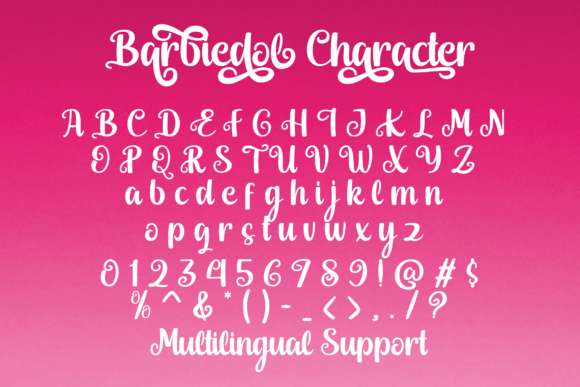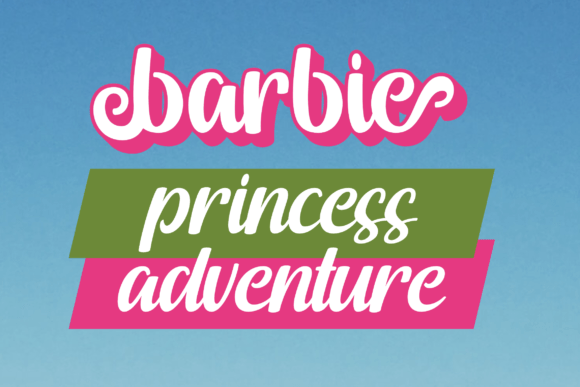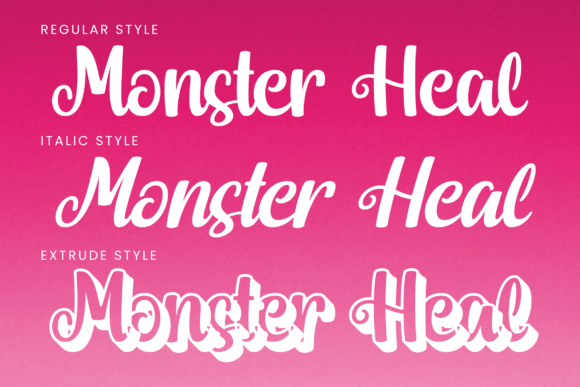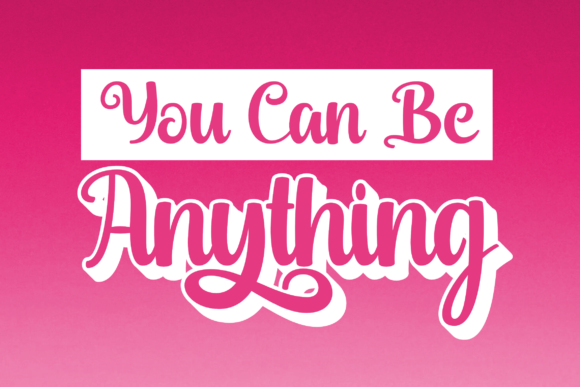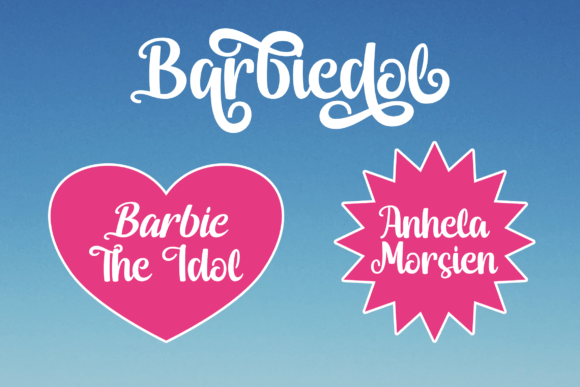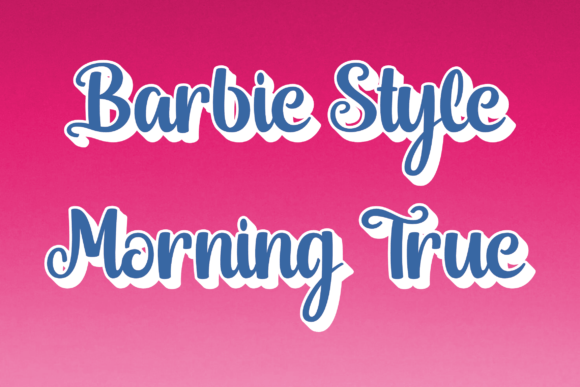
Introducing Barbiedol Font: A Magical Script Font Inspired by Barbie Movies
Are you a designer, crafter, or enthusiast looking for a unique and captivating font to elevate your creative projects? Look no further than the Barbiedol font, a script font inspired by the iconic Barbie movies. This enchanting font is designed to add a touch of magic and whimsy to your designs, and we’re excited to dive into its features and benefits.
The Inspiration Behind Barbiedol Font
The Barbiedol font draws inspiration from the colorful and vibrant world of Barbie, bringing to life the essence of the beloved movies. With its flowing script and elegant curves, this font embodies the spirit of creativity, friendship, and adventure that defines the Barbie brand. Whether you’re working on a project for kids or adults, the Barbiedol font is sure to delight and captivate your audience.
Key Features of Barbiedol Font
So, what makes the Barbiedol font special? Here are some of its key features:
- Script Font Style: The Barbiedol font is a beautiful script font that mimics the handwriting of Barbie’s iconic style.
- Multiple Alternative Fonts: The font comes with many alternative fonts, allowing you to experiment with different designs and styles to make your project more attractive.
- PUA Encoding: The Barbiedol font is PUA (Private Use Area) encoded, which means you can easily access all the glyphs and swashes to add a personal touch to your designs.
The Barbiedol font offers numerous benefits for designers and crafters, including:
- Ease of Use: With its PUA encoding, you can effortlessly access all the glyphs and swashes, making it easy to create stunning designs.
- Versatility: The font’s multiple alternative styles allow you to experiment with different looks and feels, ensuring your project stands out.
- Time-Saving: The Barbiedol font saves you time and effort, as you can quickly create professional-looking designs without starting from scratch.
Perfect for Various Projects
The Barbiedol font is suitable for a wide range of projects, including:
- Digital Art: Add a touch of magic to your digital art, illustrations, and graphics.
- Crafting: Use the font for crafting projects, such as card making, scrapbooking, and journaling.
- Branding: Create eye-catching logos, labels, and packaging with the Barbiedol font.
- Web Design: Enhance your website’s typography with this beautiful script font.
Tips for Using Barbiedol Font
To get the most out of the Barbiedol font, here are some tips:
- Experiment with Different Sizes: Play around with different font sizes to create visual interest and hierarchy.
- Combine with Other Fonts: Pair the Barbiedol font with other fonts to create a unique and harmonious design.
- Use Swashes and Glyphs: Take advantage of the font’s swashes and glyphs to add a personal touch to your designs.
In conclusion, the Barbiedol font is a captivating script font that brings the magic of Barbie to your designs. With its elegant curves, multiple alternative fonts, and PUA encoding, this font is perfect for designers, crafters, and enthusiasts looking to add a touch of whimsy to their projects. So, happy designing, and don’t forget to have fun with the Barbiedol font!